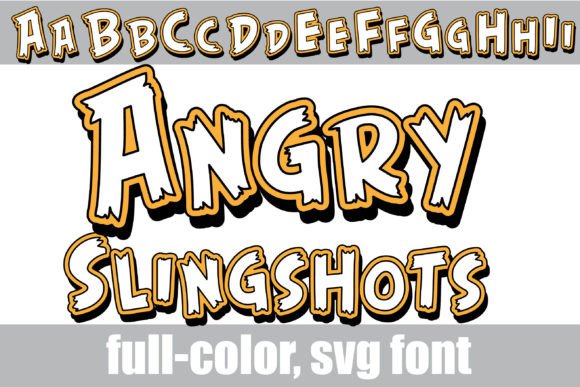
Angry Slingshots Font: A Full-Color Font for Creative Designs
The Angry Slingshots Font is a unique and creative full-color font that features wooden-like 3D lettering in an angry color palette. This font is perfect for designers who want to add a touch of personality to their designs. In this article, we will explore the features and benefits of the Angry Slingshots Font, as well as its compatibility with various programs and devices.
What is Angry Slingshots Font?
The Angry Slingshots Font is a full-color font that features wooden-like 3D lettering in an angry color palette. The font includes an alt case with additional colors that can be accessed through your system or Silhouette’s glyph map. This font is ideal for creating titles, displays, posters, and more.
Key Features of Angry Slingshots Font
- Full-color font with wooden-like 3D lettering
- Angry color palette for a bold and edgy look
- Alt case with additional colors for more design options
Benefits of Using Angry Slingshots Font
The Angry Slingshots Font offers a range of benefits for designers. Here are just a few:
Benefits:
- Add a touch of personality to your designs with a unique and creative font
- Create bold and eye-catching titles, displays, and posters
- Use the alt case and additional colors to add more interest and depth to your designs
- Scale the font to any size without losing quality, thanks to its vector-based SVG format
Tips for Using Angry Slingshots Font
Here are a few tips for getting the most out of the Angry Slingshots Font:
Tips:
- Experiment with different colors and combinations to find the perfect look for your design
- Use the font to create bold and eye-catching titles and headings
- Mix and match the Angry Slingshots Font with other fonts to create a unique and interesting design
- Take advantage of the font’s vector-based SVG format to scale it to any size without losing quality
The Angry Slingshots Font is a unique and creative full-color font that’s perfect for designers who want to add a touch of personality to their designs. With its wooden-like 3D lettering and angry color palette, this font is ideal for creating bold and eye-catching titles, displays, and posters. Whether you’re a professional designer or just starting out, the Angry Slingshots Font is a great addition to your font library.